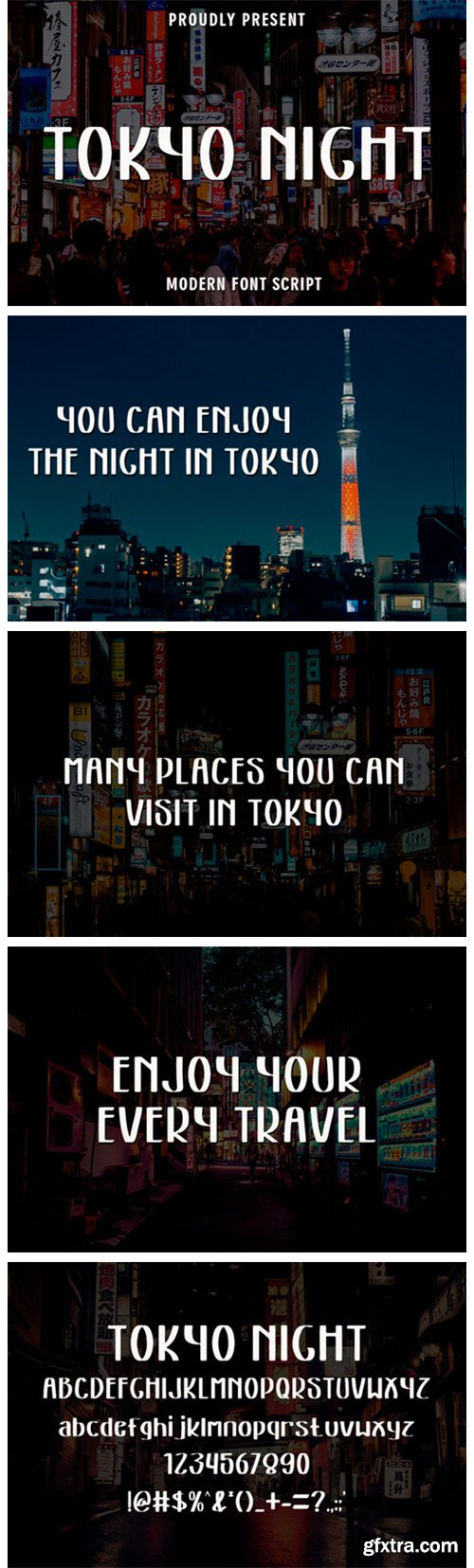
Tokyo Night Font
Tokyo Night is a unique display font. Its casual charm makes it appear wonderfully down-to-earth, readable and, ultimately, incredibly versatile. Tokyo Night will look outstanding in any context, whether it’s being used on busy backgrounds or as a standalone headline!